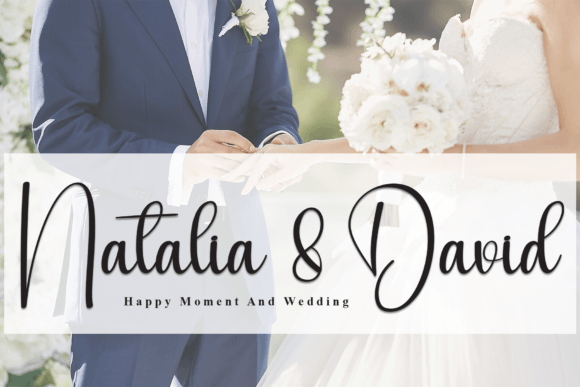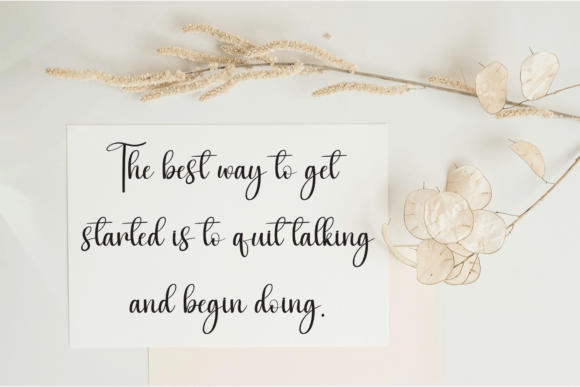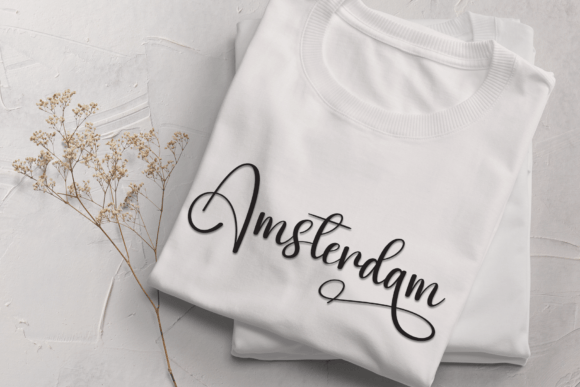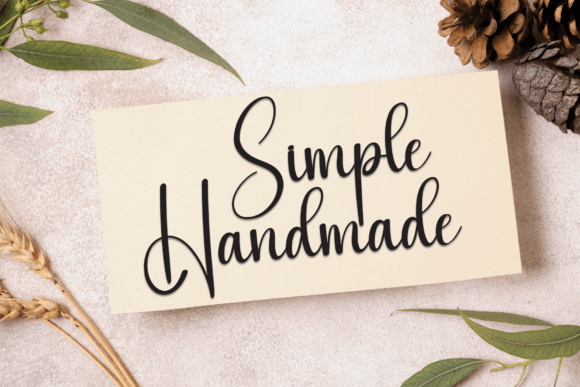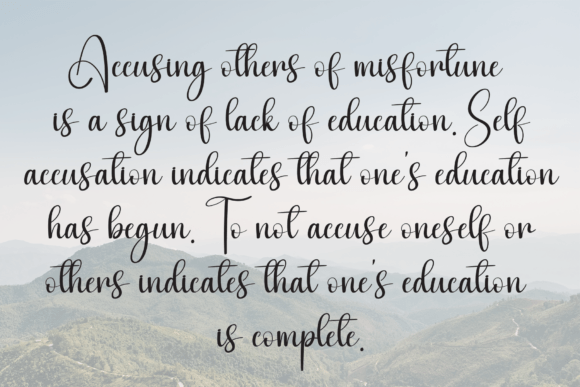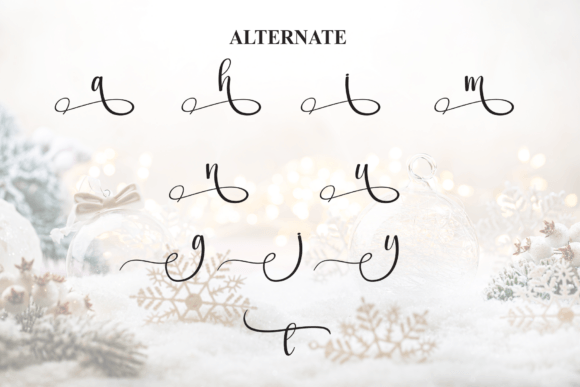
Introducing Christmas Chasing Font: A Timeless Handwritten Delight
Are you on the hunt for a font that embodies the spirit of the holiday season? Look no further than Christmas Chasing Font, a lovely and timeless handwritten font that’s sure to make your designs merry and bright. In this article, we’ll dive into the world of Christmas Chasing Font, exploring its unique features, uses, and benefits for designers and crafters alike.
A Festive Font with a Personal Touch
Christmas Chasing Font is a beautifully crafted handwritten font that’s perfect for creating eye-catching logos, branding, and quotes. What sets it apart from other fonts is its unique and beautiful touch – every letter has been carefully designed to bring a sense of personality and warmth to your designs. Whether you’re working on a holiday-themed project or simply want to add a touch of whimsy to your designs, Christmas Chasing Font is the perfect choice.
Key Features of Christmas Chasing Font
- Handwritten with love: Christmas Chasing Font is a genuine handwritten font, giving it a personal and authentic feel that’s hard to replicate with machine-generated fonts.
- Unique letterforms: Each letter has been carefully crafted to have its own distinct character, ensuring that your designs stand out from the crowd.
- Timeless appeal: Despite being inspired by traditional holiday themes, Christmas Chasing Font has a timeless quality that makes it suitable for a wide range of design applications.
- Ease of use: This font is easy to read and works well in a variety of sizes, making it perfect for everything from social media graphics to large-scale signage.
Uses for Christmas Chasing Font
So, what can you create with Christmas Chasing Font? The possibilities are endless! Here are a few ideas to get you started:
- Holiday branding: Use Christmas Chasing Font to create festive logos, packaging, and marketing materials that capture the spirit of the season.
- Social media graphics: Add a touch of holiday cheer to your social media posts with eye-catching graphics featuring Christmas Chasing Font.
- Invitations and cards: Create beautiful, one-of-a-kind invitations and cards for holiday parties, events, and celebrations.
- Quotes and posters: Use Christmas Chasing Font to create inspiring quotes and posters that showcase your favorite holiday-themed phrases.
So, why should designers and crafters choose Christmas Chasing Font for their projects? Here are just a few benefits:
- Instant holiday cheer: Add a touch of festive fun to your designs with Christmas Chasing Font’s playful, handwritten style.
- High-quality design: Christmas Chasing Font has been carefully crafted to provide a professional finish, ensuring your designs look polished and put-together.
- Versatility: This font can be used for a wide range of design applications, from digital projects to print materials.
Christmas Chasing Font is a beautiful, timeless handwritten font that’s perfect for designers and crafters looking to add a touch of holiday magic to their designs. With its unique letterforms, ease of use, and versatility, this font is sure to become a favorite in your design toolkit. So why wait? Download Christmas Chasing Font today and start creating your own festive designs!